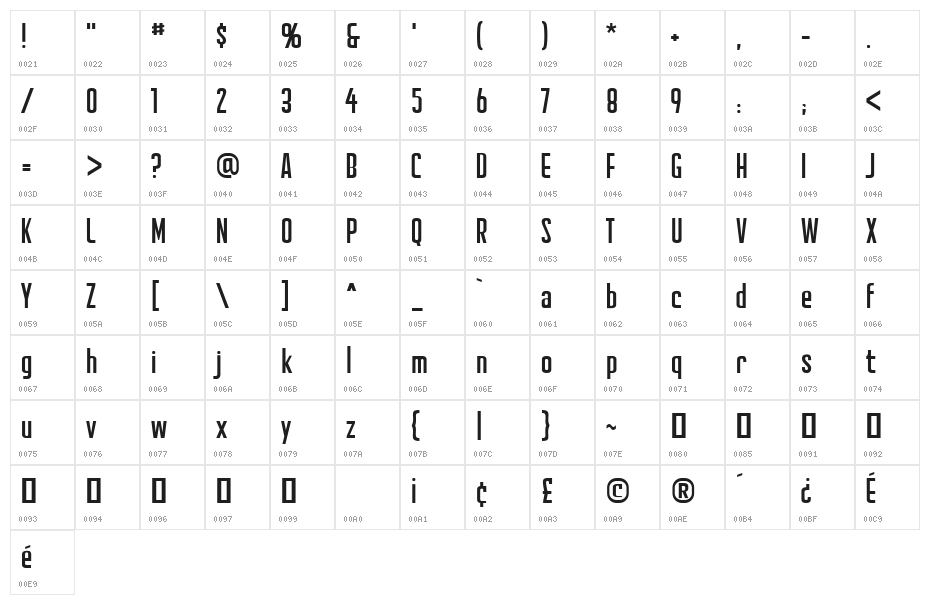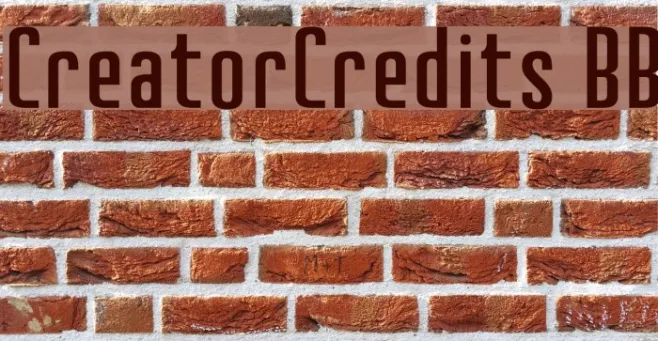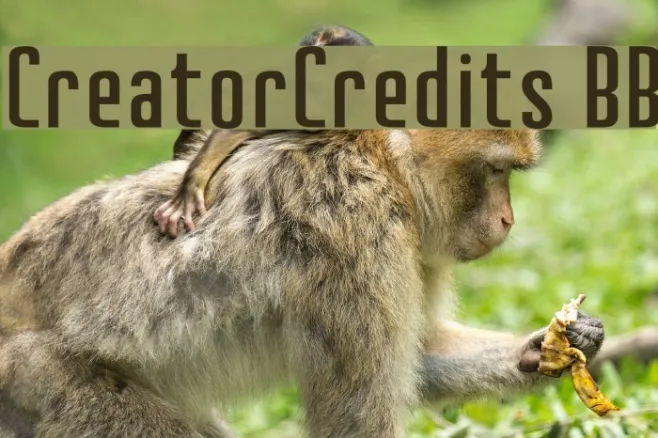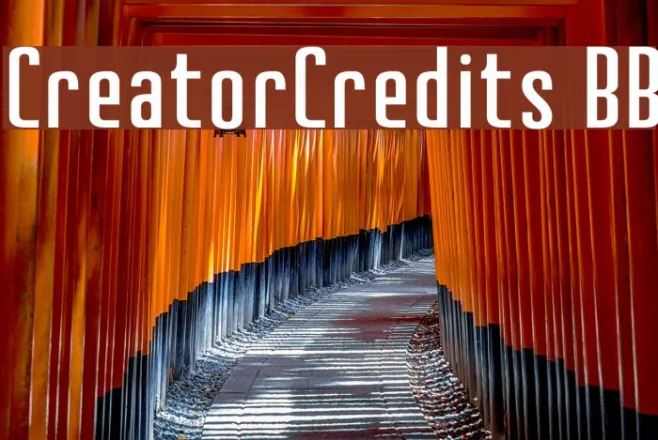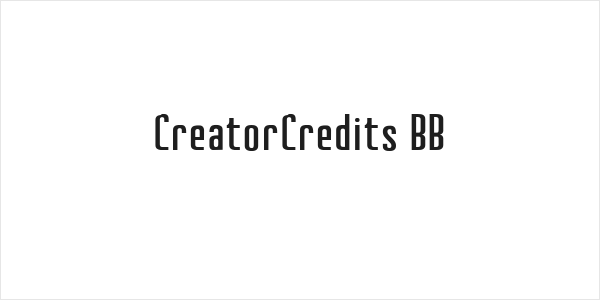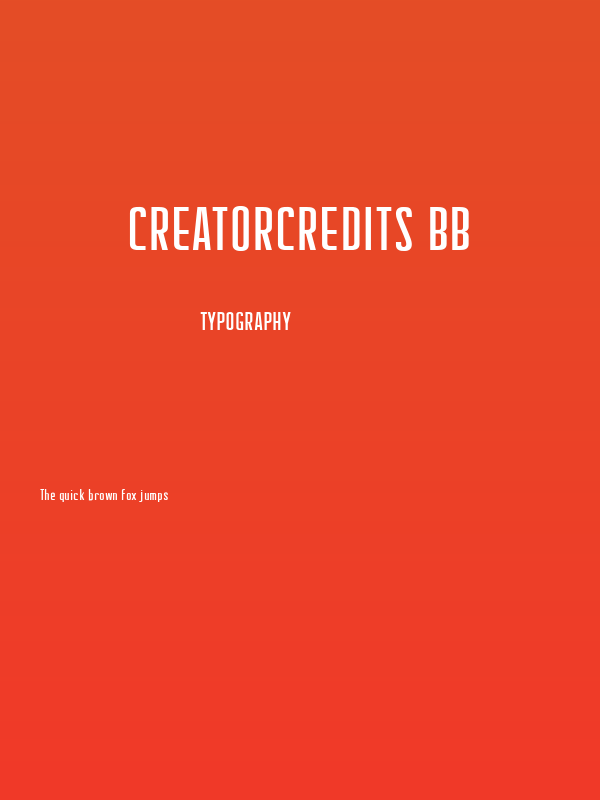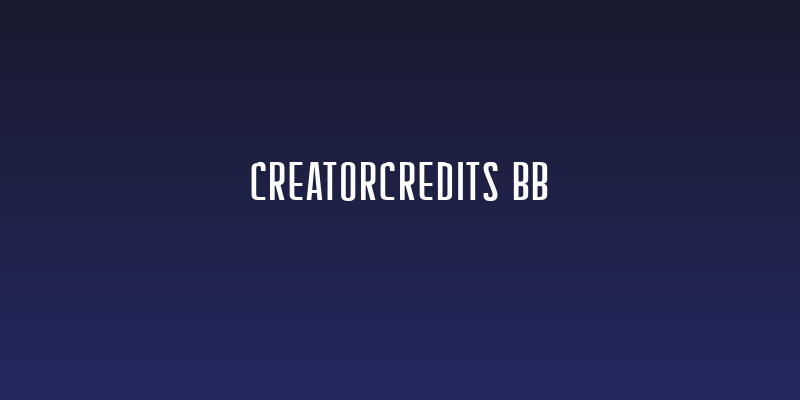
CreatorCredits BB Font
CreatorCredits BB Description
This font features a bold and modern design with clean, straight lines and a slightly condensed appearance. The uppercase letters are tall and commanding, while the lowercase letters maintain a consistent height that complements the overall structure. The numerals are clear and easily readable, making them suitable for various applications. Special characters are included, providing versatility for different types of text. The font's style is both contemporary and functional, making it ideal for projects that require a strong visual impact.
| Proposed Projects | Ideal for headlines, posters, branding, and advertising materials that require a strong and modern aesthetic. |